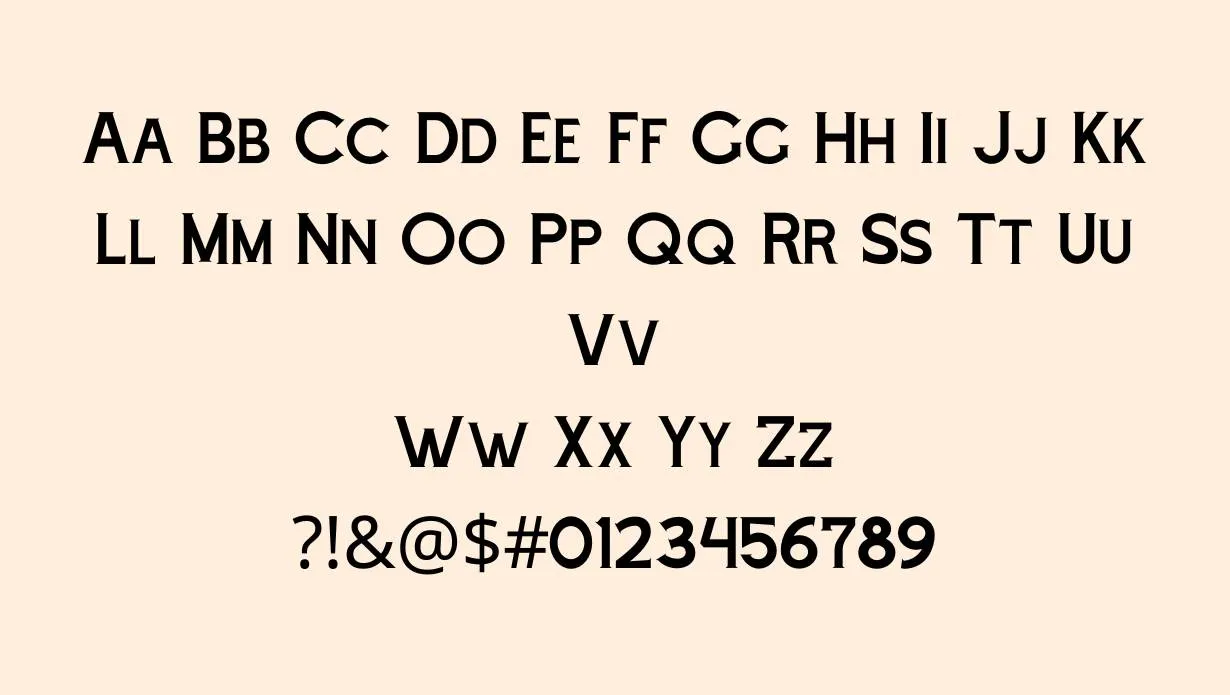
Cascade Motorcycle Font exudes a rugged and bold feel, reminiscent of the open road. Its strong, angular letters bring a sense of adventure and strength to any text. This font is often used in motorcycle-related designs or outdoor-themed projects, evoking a feeling of freedom and rebellion.
Its bold appearance makes it stand out, making any text look sturdy and daring. Whether used in posters or apparel branding, this font adds a sense of toughness and dynamism to the writing.
| Name | Cascade Motorcycle Font |
| Designer | Angin Studio |